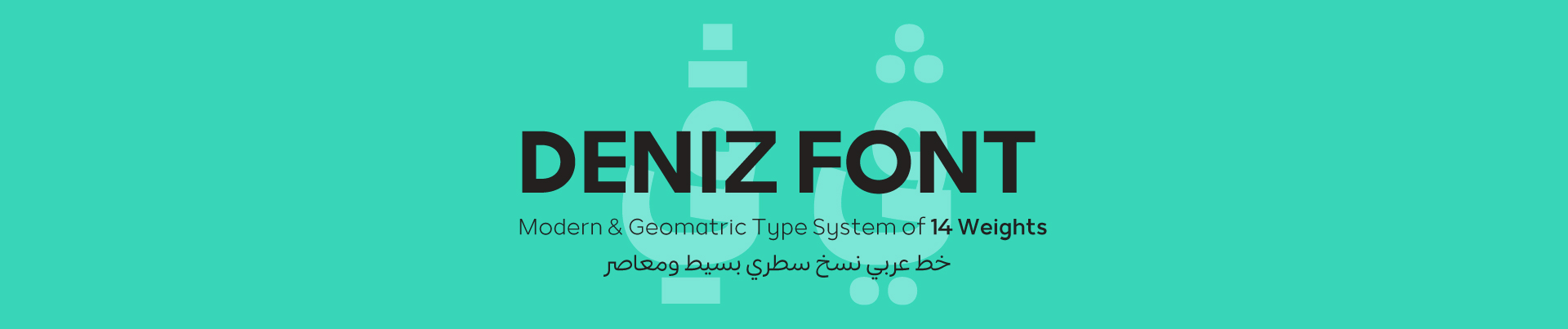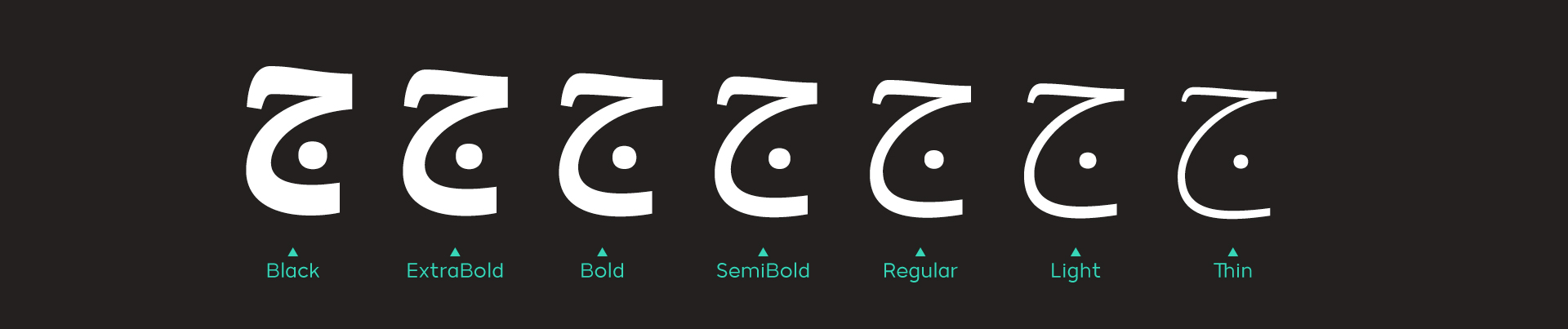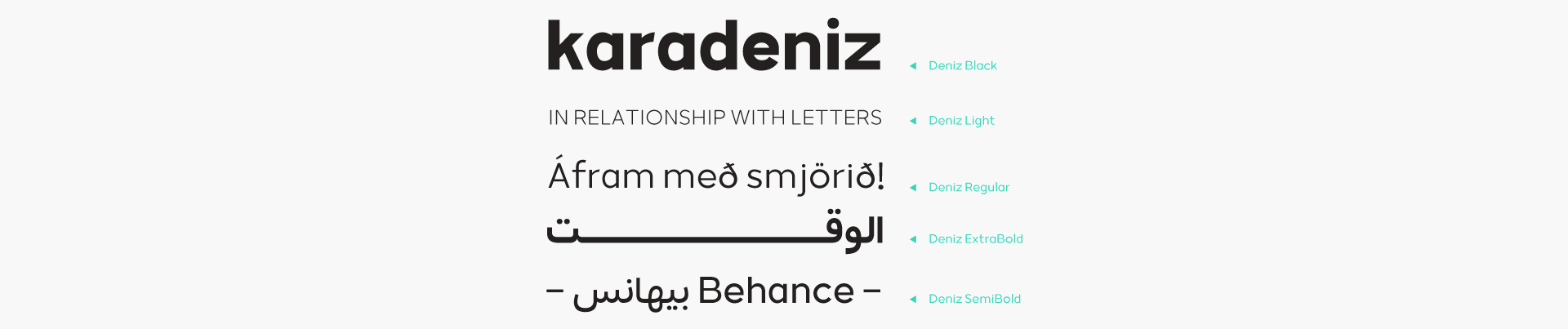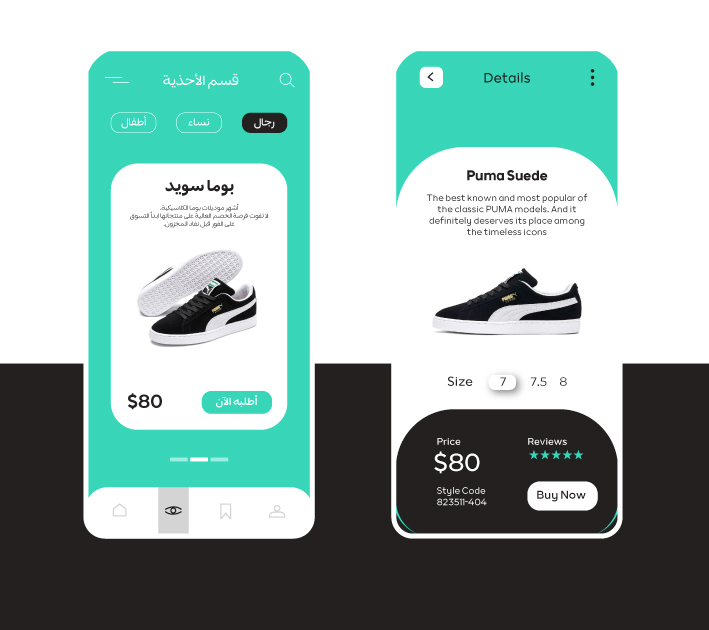
About Deniz Font
Introduction:
Deniz Font is a simple modern Naskh script. It was inspired by the abstraction of Naskh script letters while preserving the appearance of the Naskh characters. Latin letters are geometric with details to match the Arabic letters.
Weights and Languages:
It consists of 14 weights in addition to the variable font. It supports Latin and Arabic.
Usage:
Deniz Font is used in headlines, texts, websites, social media posters, visual identities, and printing.
Designing & Developing:
TSfonts Type Foundry
Tarek Alsawwa